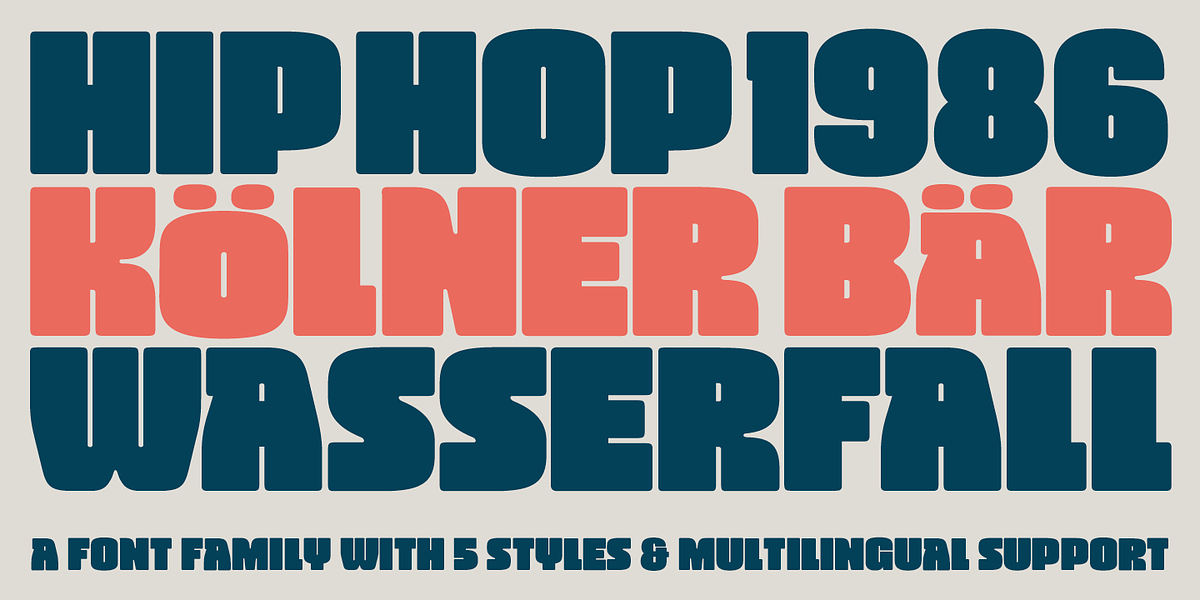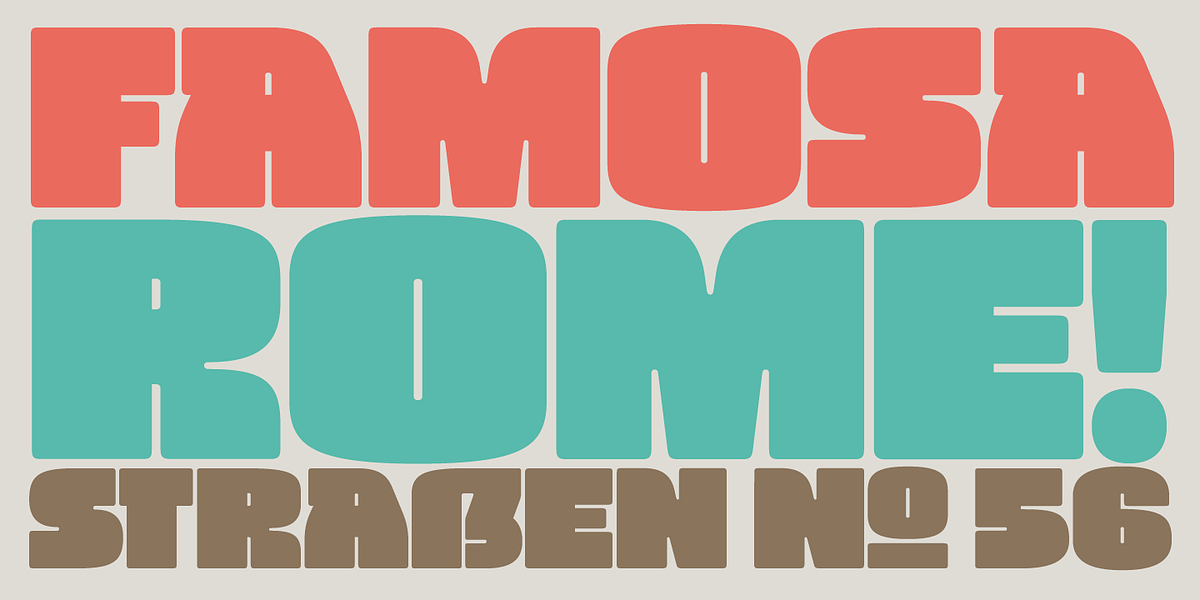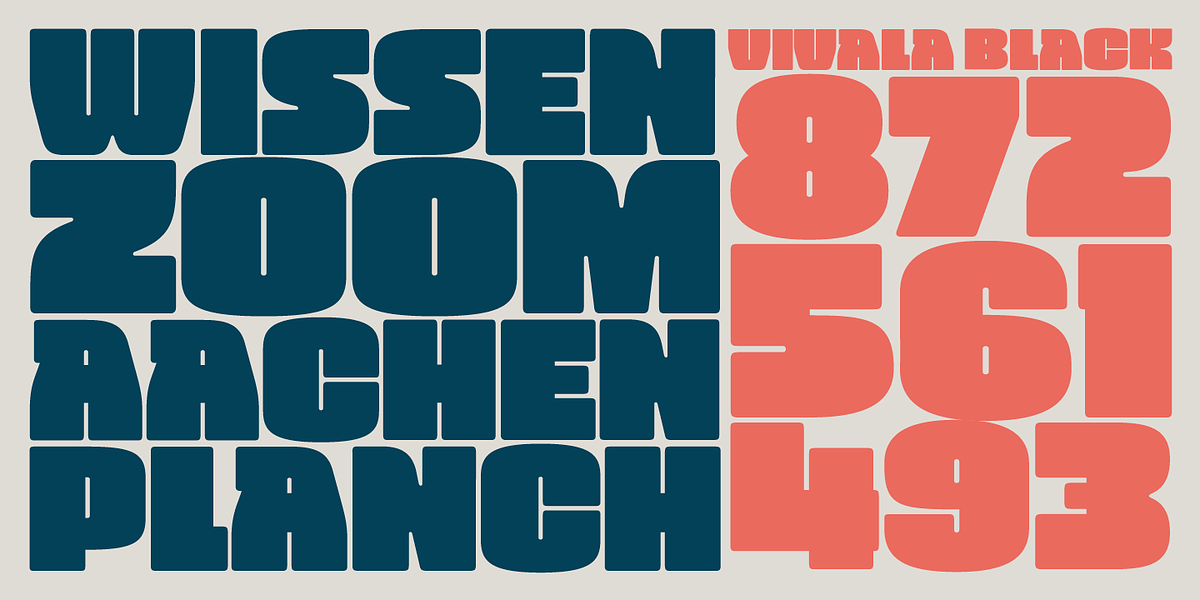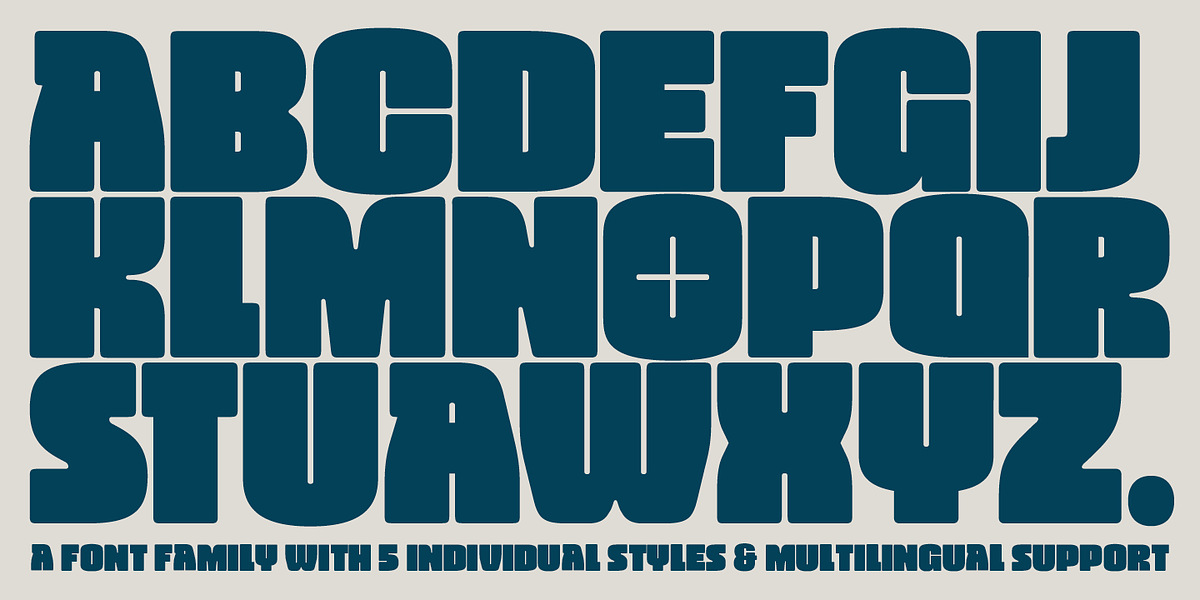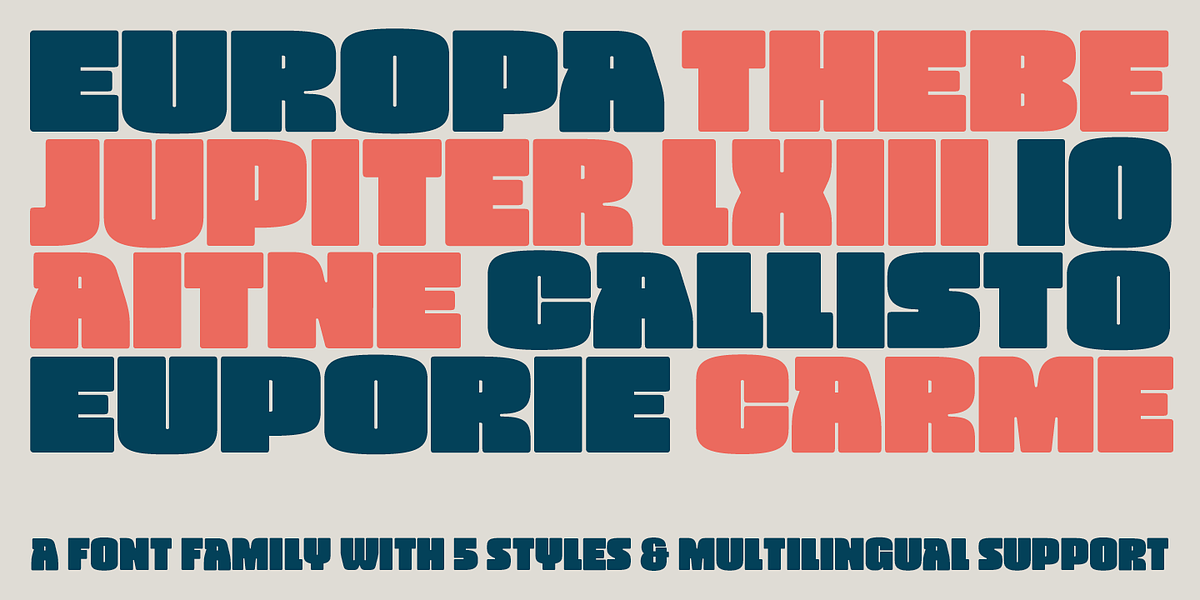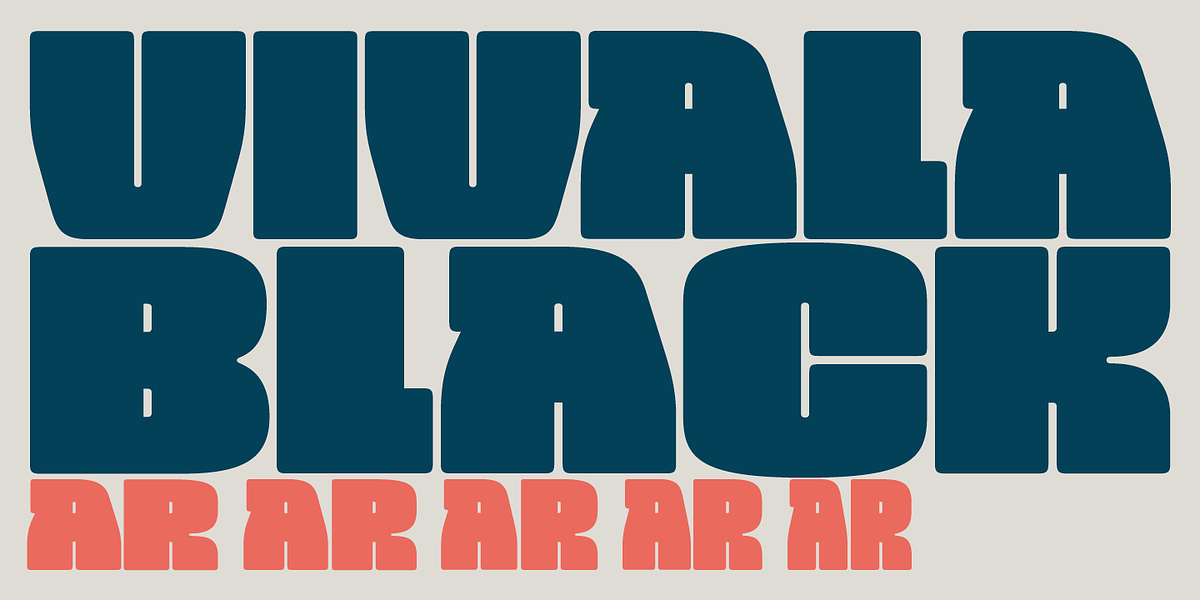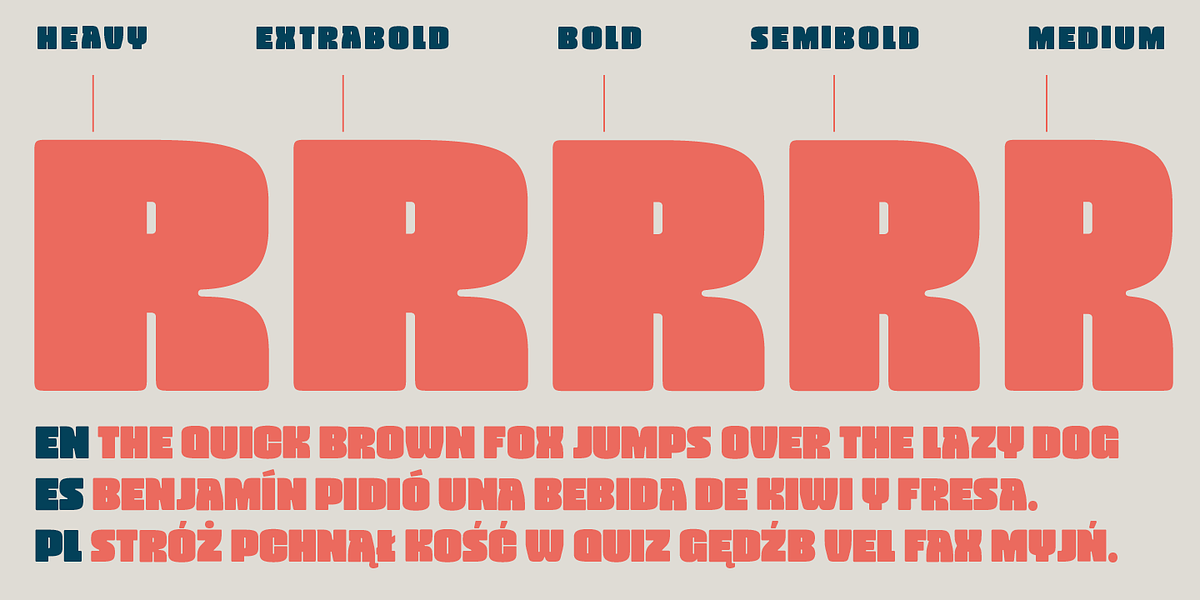
Vivala Black
Vivala Black is a display typeface designed for a bold and compact aesthetic. It features a high black ratio, meaning the strokes are thick and heavy, creating a strong visual impact. The font includes four widths with similar metrics, allowing for flexibility in layout and design. OpenType features such as ligatures, fractions, ordinals, numerators, denominators, and stylistic alternates enhance typographic possibilities.